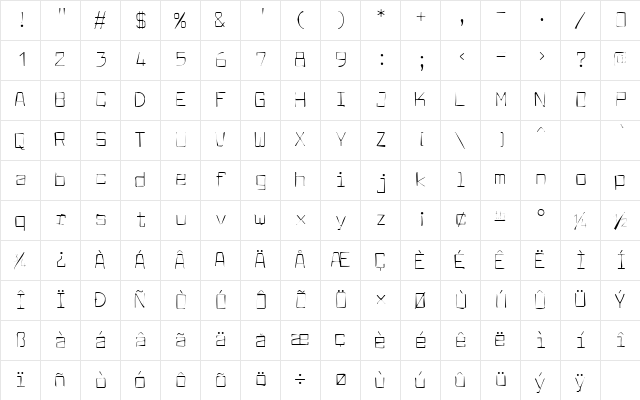
Larabiefont Gaunt Regular Free Font
Larabiefont Gaunt Regular
Design Context for Larabiefont Gaunt
Larabiefont Gaunt is a composed and adaptable typeface that performs quietly and consistently across a wide range of design contexts.
Pro Tip: Use Larabiefont Gaunt in both headline and body roles to test its range before committing to a single application.